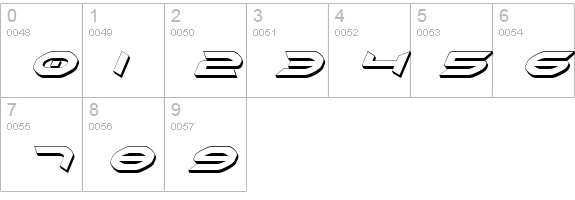
Omni Girl 3D Italic Font Details
Omni Girl 3D Italic is a distinctive, italic variant in the Omni typeface family \xE2\x80\x94 well suited to design and typography projects.
Introducing Omni Girl 3D Italic font – a sleek and dynamic typeface that exudes modernity and sophistication. With its unique 3D effect and elegant italic styling, this font is perfect for adding a touch of flair to any design project. Best of all, Omni Girl 3D Italic font is completely free to download at FontsMarket.com. Whether you're working on a branding project, website design, or any other creative endeavor, this font will surely make a statement and elevate your work to the next level. Don't miss out on the opportunity to enhance your designs with the stylish Omni Girl 3D Italic font – download it for free today at FontsMarket.com and unleash your creativity!